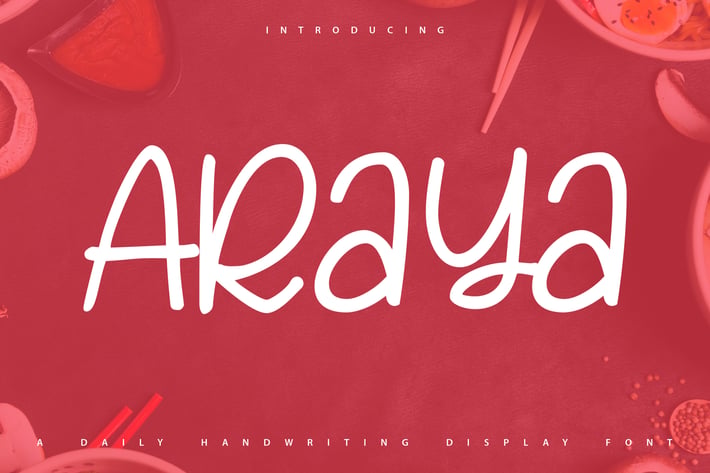
Araya | Daily Handwriting Display Font
Araya | Daily Handwriting Display Font with a calligraphy style, So beautiful on invitation like greeting cards, branding materials, business cards, quotes, posters, and more!